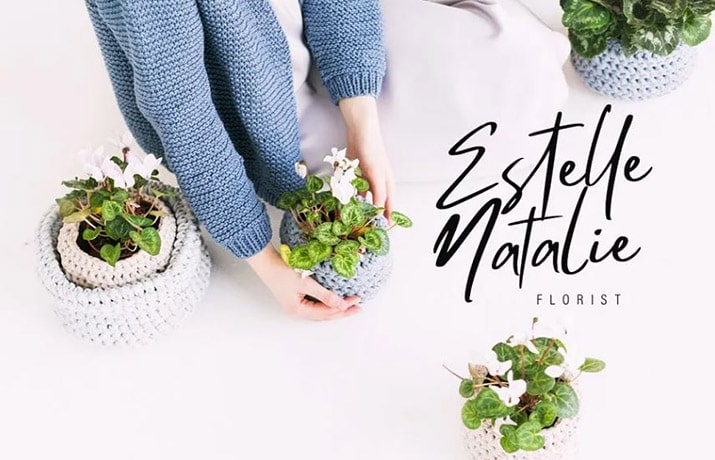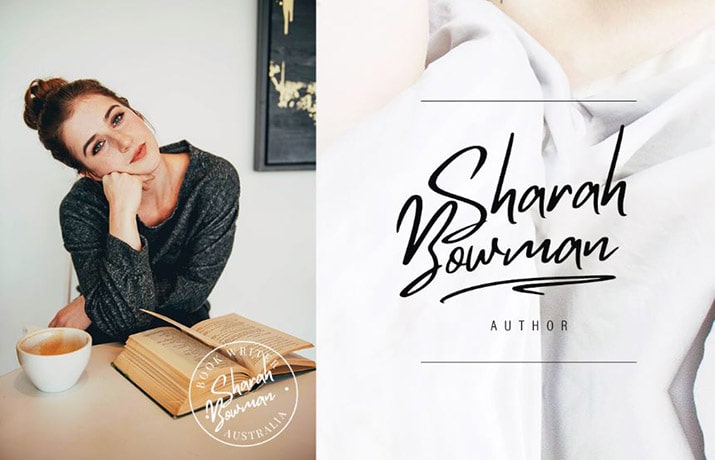
Mistrully Font is a stylish brush script typeface with a handwritten design. It features both uppercase and lowercase letters as well as numerals.
Created and shared by Creatype Studio that makes stunning and cool design typefaces that are suitable for any project purposes for your business.
Each letter is created in an italic style, and an extra swash is added to the end of each letter.
Moreover, the designer also adds a playful touch to each letter which adds extra creativity to it. Therefore, natural flow is a deep concern that this font will convey in its design.
Style:Script, Handwritten, Typeface
This super cool font will help create special quotes, taglines, signatures, shopping bags, branding, logos, printing on cards, product design, product packaging, printing materials, posters, flyers, titles, game graphics, etc.